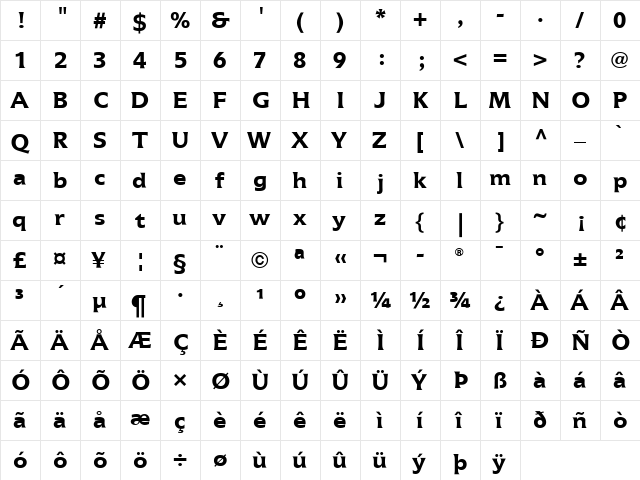
Icone LT Regular Bold
Design Context for Icone LT Regular Typeface
Icone LT Regular is a composed and adaptable typeface that performs quietly and consistently across a wide range of design contexts. Its bold stroke weight gives it real presence on the page.